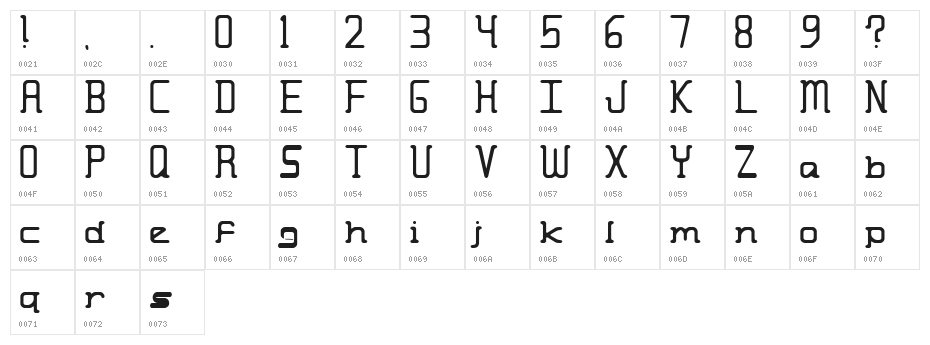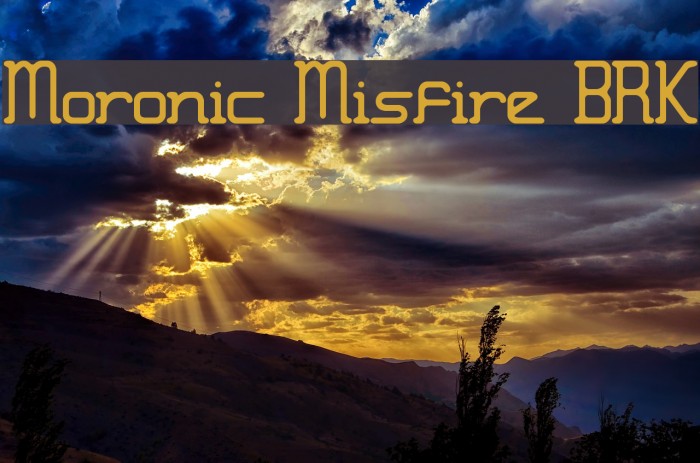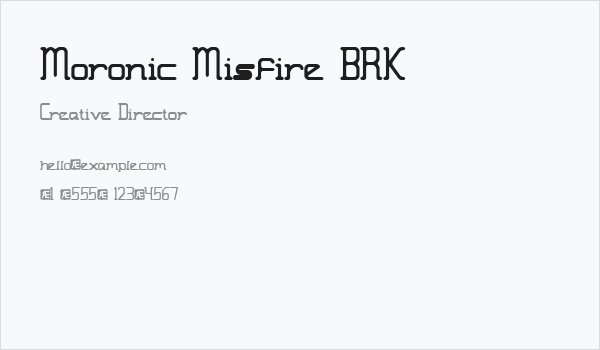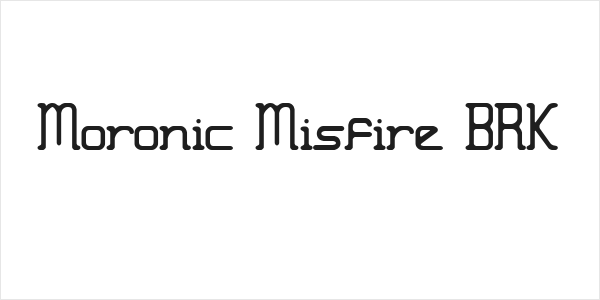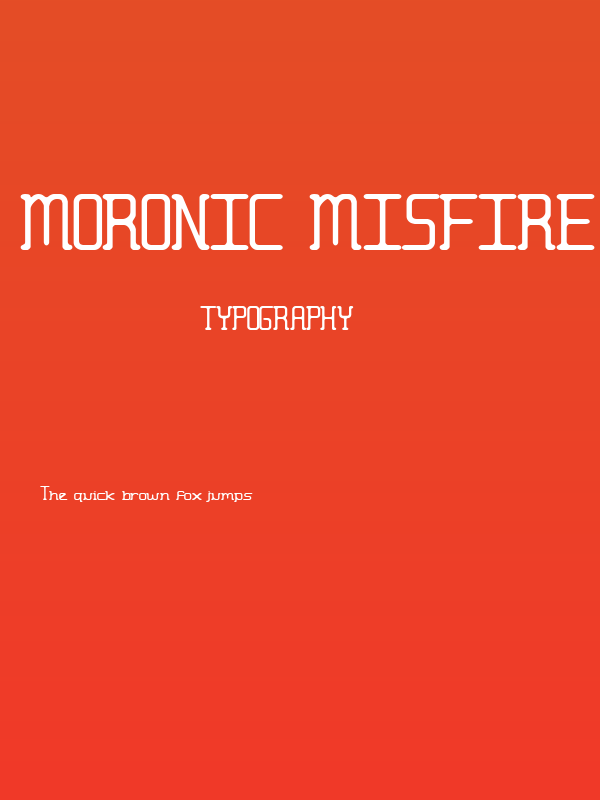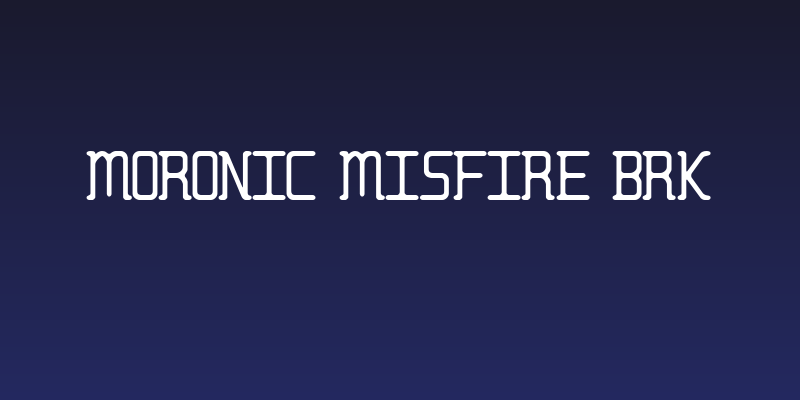
Moronic Misfire BRK Font
Moronic Misfire BRK Description
This font features a playful and quirky design with a unique, rounded style. The characters have a consistent thickness, giving it a uniform appearance. The uppercase and lowercase letters maintain a similar width, creating a cohesive look. The numbers are bold and easily distinguishable, while the special characters add a touch of whimsy with their distinct shapes. The font's overall appearance is both modern and fun, making it suitable for creative projects that require a light-hearted touch.
| Overall Style | Modern, Fun |
| Proposed Projects | Ideal for children's books, playful branding, creative posters, and fun social media graphics. |